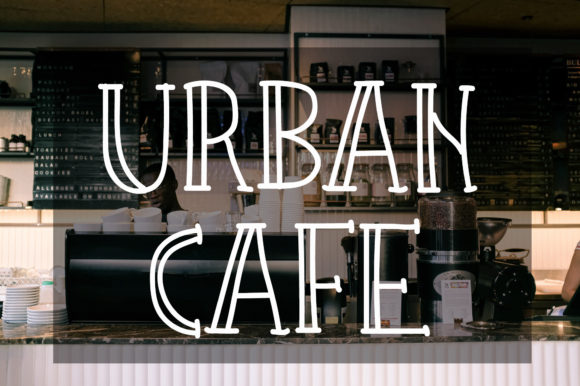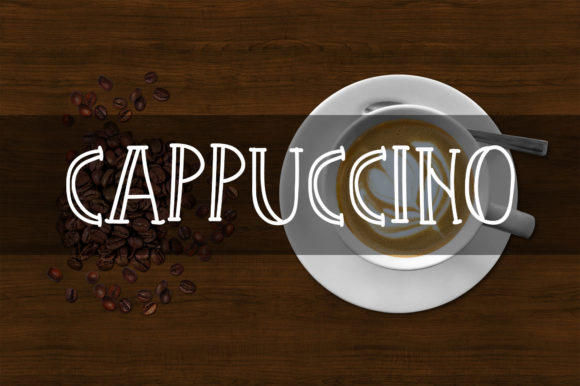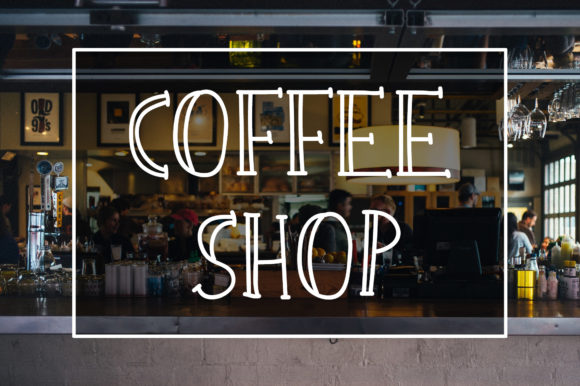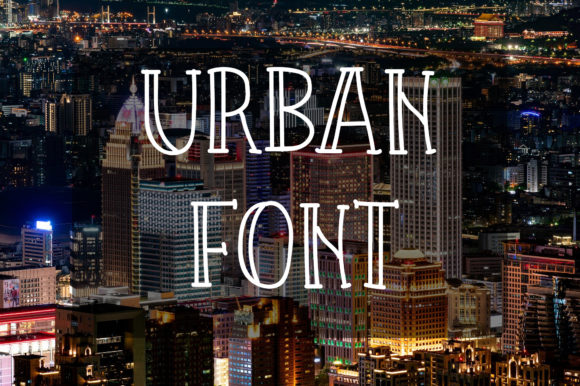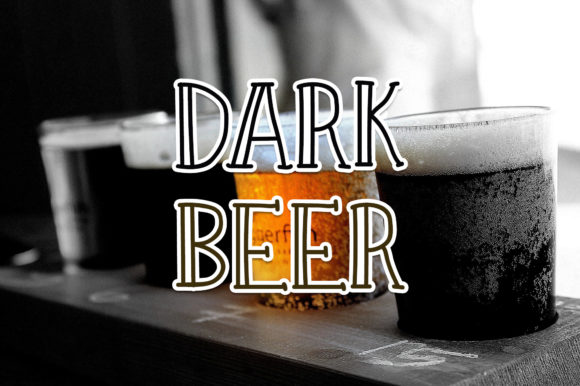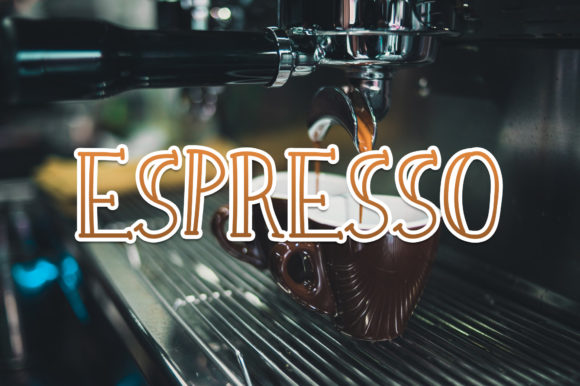
Introducing Barista Coffee Font: The Ultimate Urban Styled Display Font
Are you a designer, crafty enthusiast, or simply a coffee lover looking for the perfect font to elevate your creative projects? Look no further than Barista Coffee Font, an urban styled display font that is sure to perk up your designs. In this article, we’ll dive into the world of Barista Coffee Font, exploring its features, uses, and benefits, as well as provide tips and inspiration for incorporating it into your work.
What is Barista Coffee Font?
Barista Coffee Font is a stylish and modern display font designed to add a touch of urban flair to your projects. With its sleek lines, bold curves, and edgy vibe, this font is perfect for creating eye-catching headlines, titles, and quotes. Whether you’re working on a magazine cover, logo, menu, or social media graphic, Barista Coffee Font is sure to make a statement.
Key Features of Barista Coffee Font
- Urban Styled: Barista Coffee Font boasts a modern, urban aesthetic that’s perfect for designs that require a bold and edgy look.
- Display Font: This font is specifically designed for display purposes, making it ideal for headlines, titles, and short texts.
- Versatile: Barista Coffee Font can be used for a wide range of projects, from magazine covers and logos to quotes, menus, and more.
- Easily Readable: Despite its bold and edgy design, Barista Coffee Font remains easily readable, even at smaller sizes.
Uses for Barista Coffee Font
With its versatility and stylish design, Barista Coffee Font can be used for a variety of projects, including:
- Magazine Covers: Create eye-catching headlines and titles for your magazine covers that will grab readers’ attention.
- Logos: Use Barista Coffee Font to create bold and memorable logos for your brand or business.
- Quotes: Add a touch of urban style to your quotes and sayings with Barista Coffee Font.
- Menus: Elevate your restaurant or cafe menu with Barista Coffee Font, perfect for highlighting dishes, drinks, and specials.
- Social Media Graphics: Use Barista Coffee Font to create engaging social media graphics, such as Facebook posts, Instagram stories, and Twitter headers.
Tips for Using Barista Coffee Font
To get the most out of Barista Coffee Font, here are a few tips to keep in mind:
- Experiment with Colors: Barista Coffee Font looks great in a variety of colors, so don’t be afraid to experiment and find the perfect hue for your design.
- Mix and Match: Combine Barista Coffee Font with other fonts to create a unique and visually appealing design.
- Play with Sizes: Use Barista Coffee Font in different sizes to create visual hierarchy and add emphasis to your design.
Inspiration for Your Next Project
Still looking for inspiration? Here are a few ideas to get you started:
- Coffee Shop Branding: Create a bold and eye-catching brand identity for a coffee shop or cafe using Barista Coffee Font.
- Fashion Magazine: Use Barista Coffee Font to create a stylish and modern fashion magazine cover or editorial spread.
- Restaurant Menu: Design a menu for a trendy restaurant or bar using Barista Coffee Font to highlight dishes and drinks.
In conclusion, Barista Coffee Font is a versatile and stylish urban styled display font that’s perfect for designers, crafty enthusiasts, and coffee lovers alike. With its bold and edgy design, easily readable text, and wide range of uses, Barista Coffee Font is sure to elevate your creative projects and add a touch of urban flair. So why wait? Let your imagination run wild and get creative with Barista Coffee Font today!